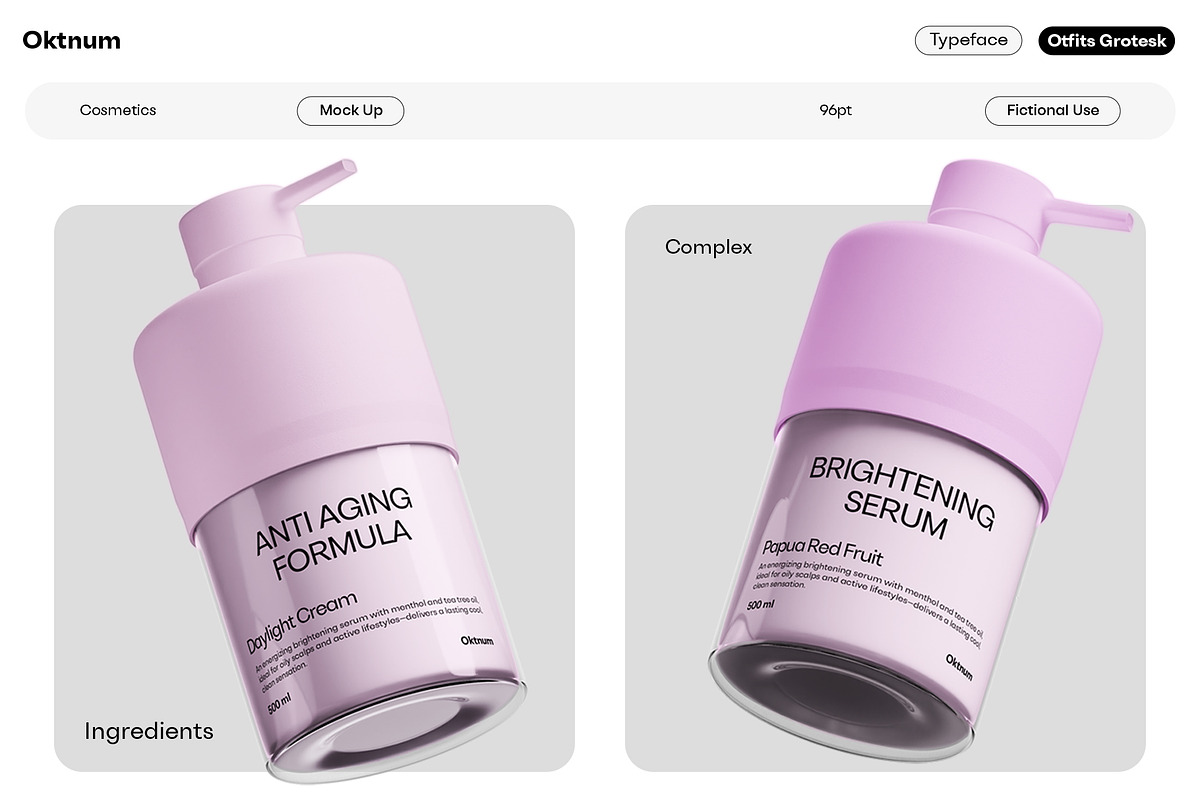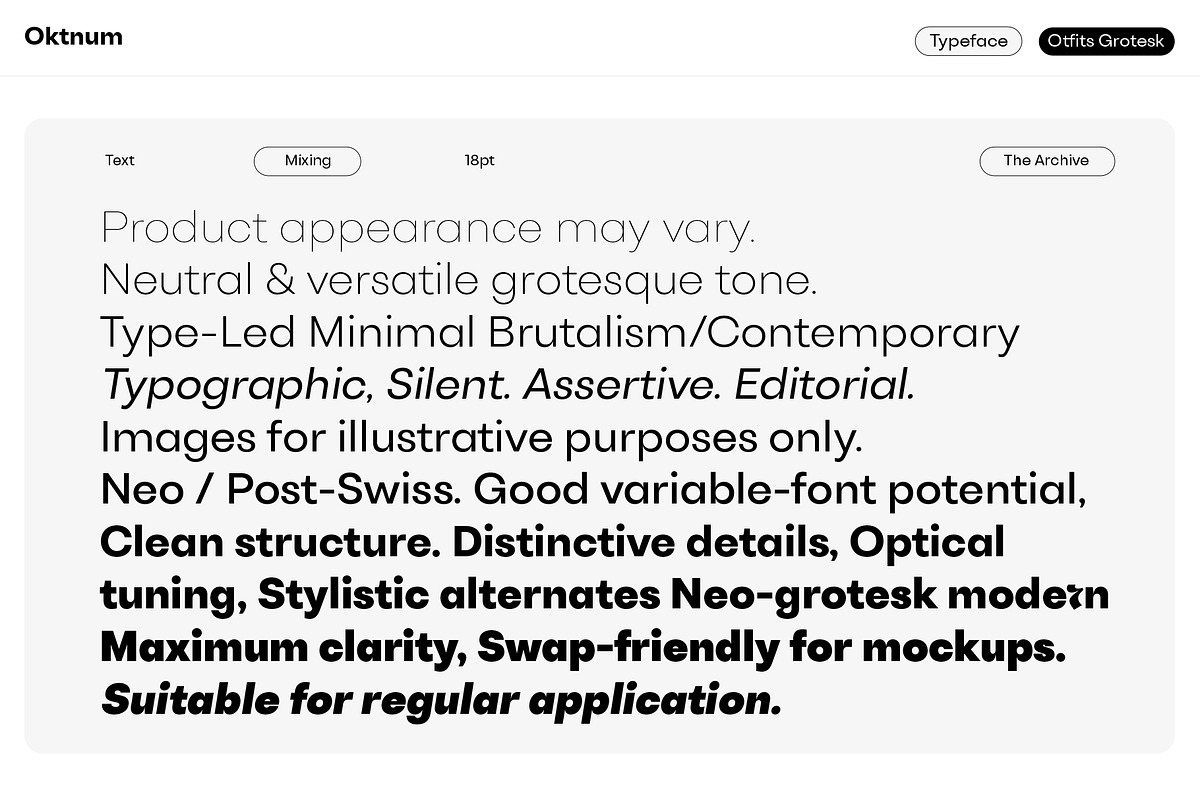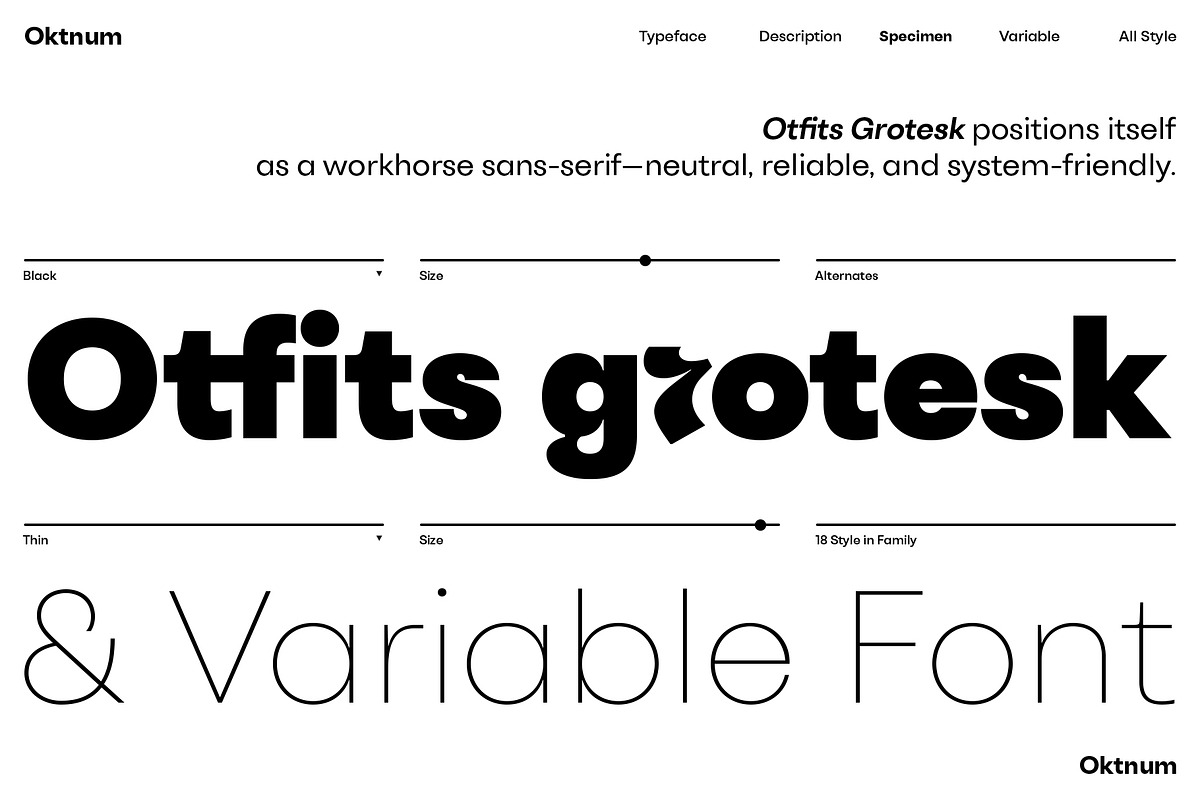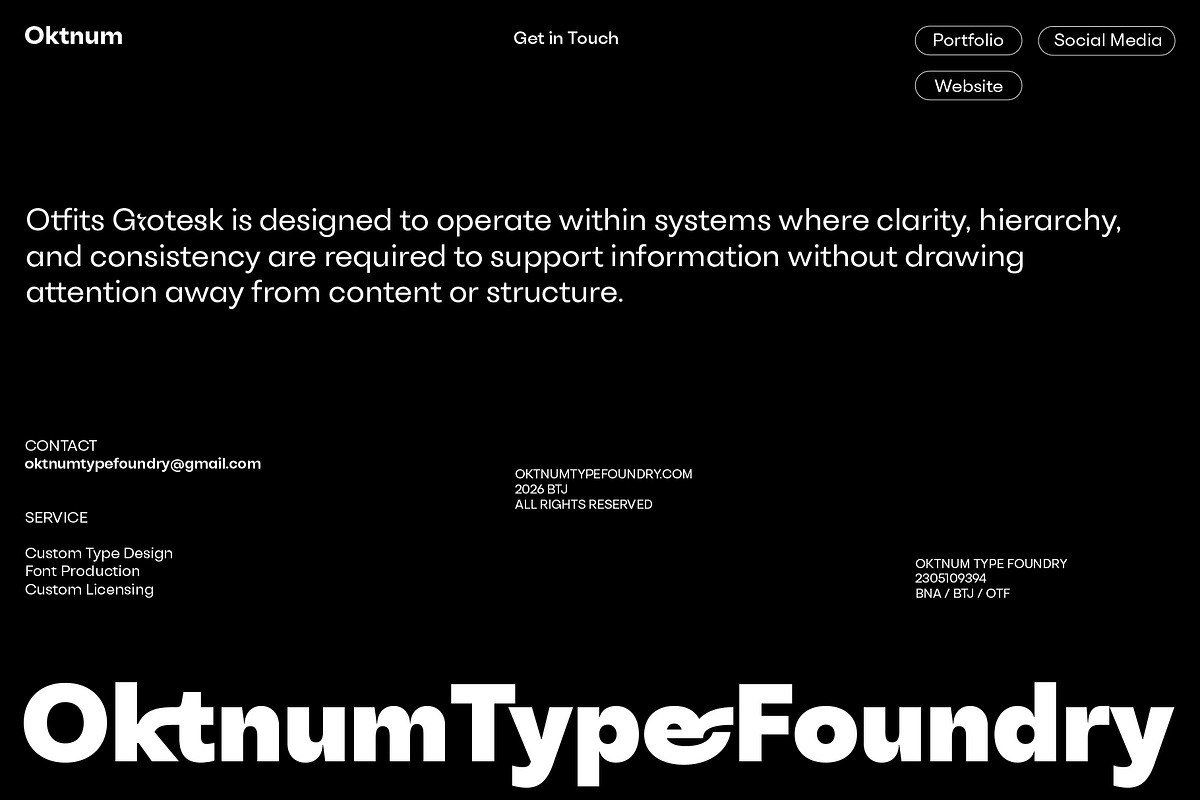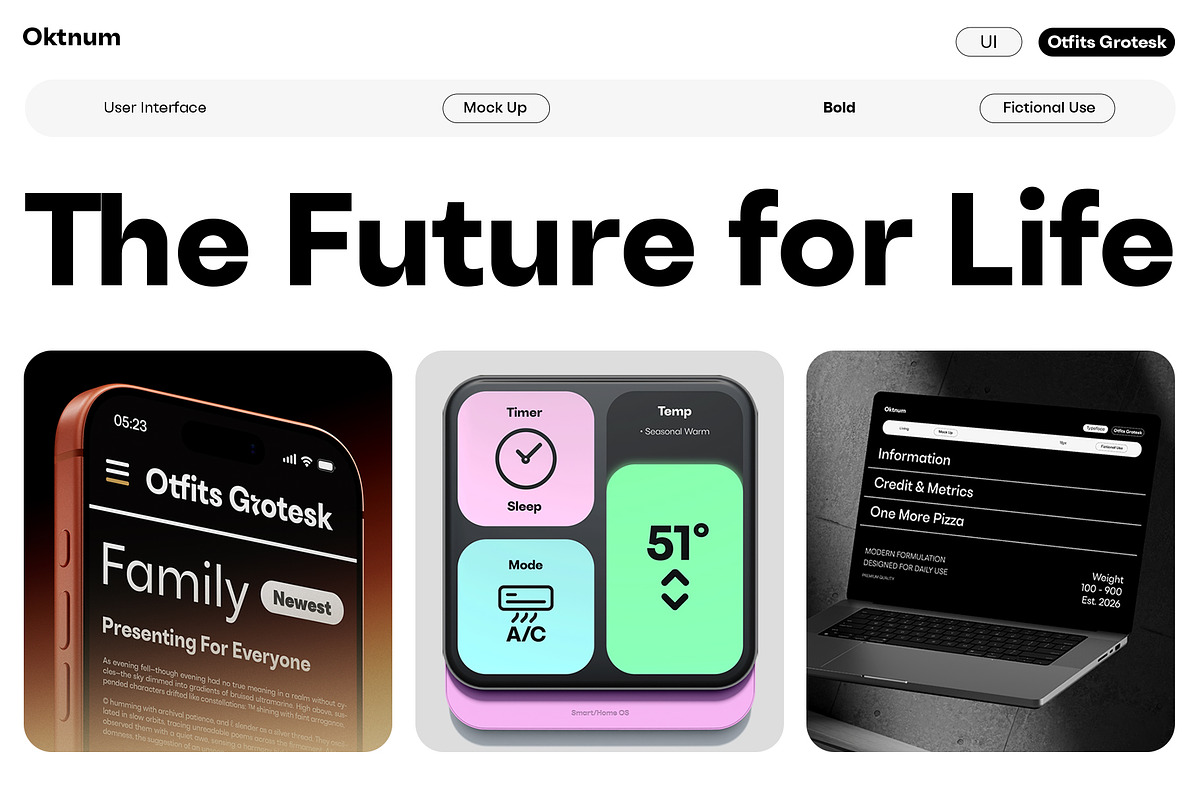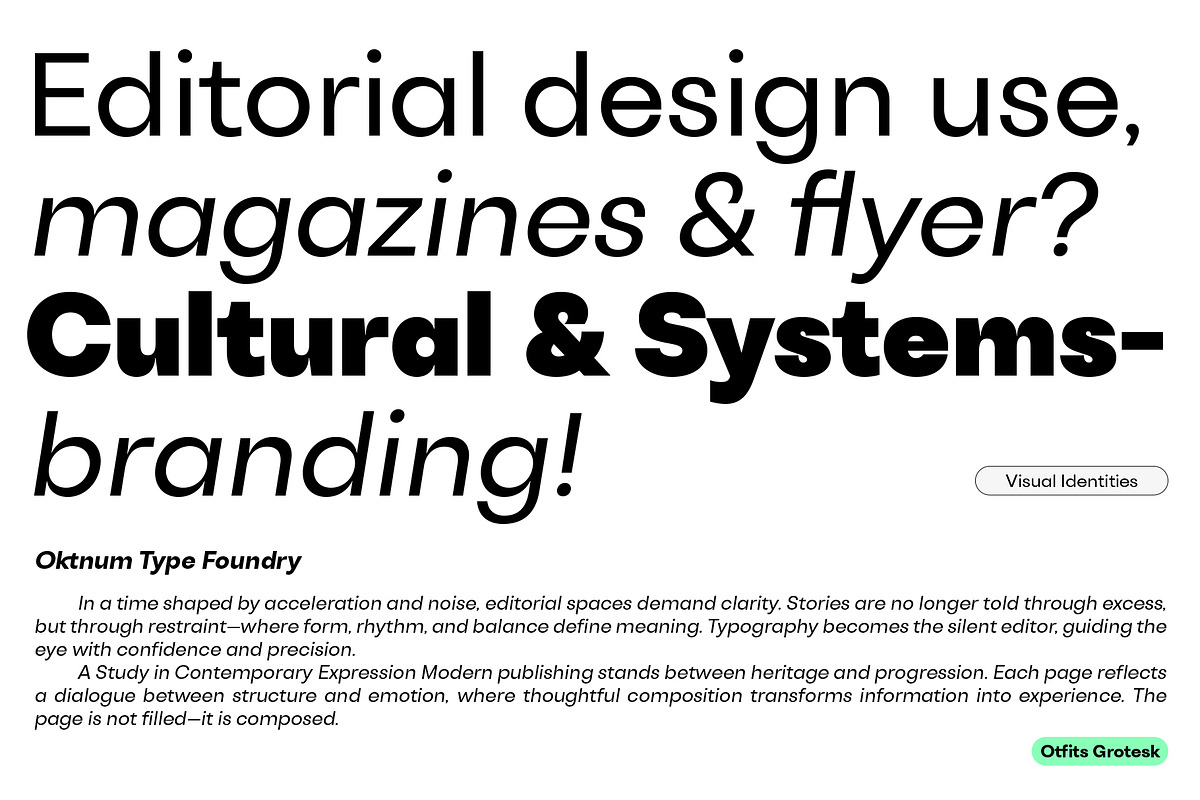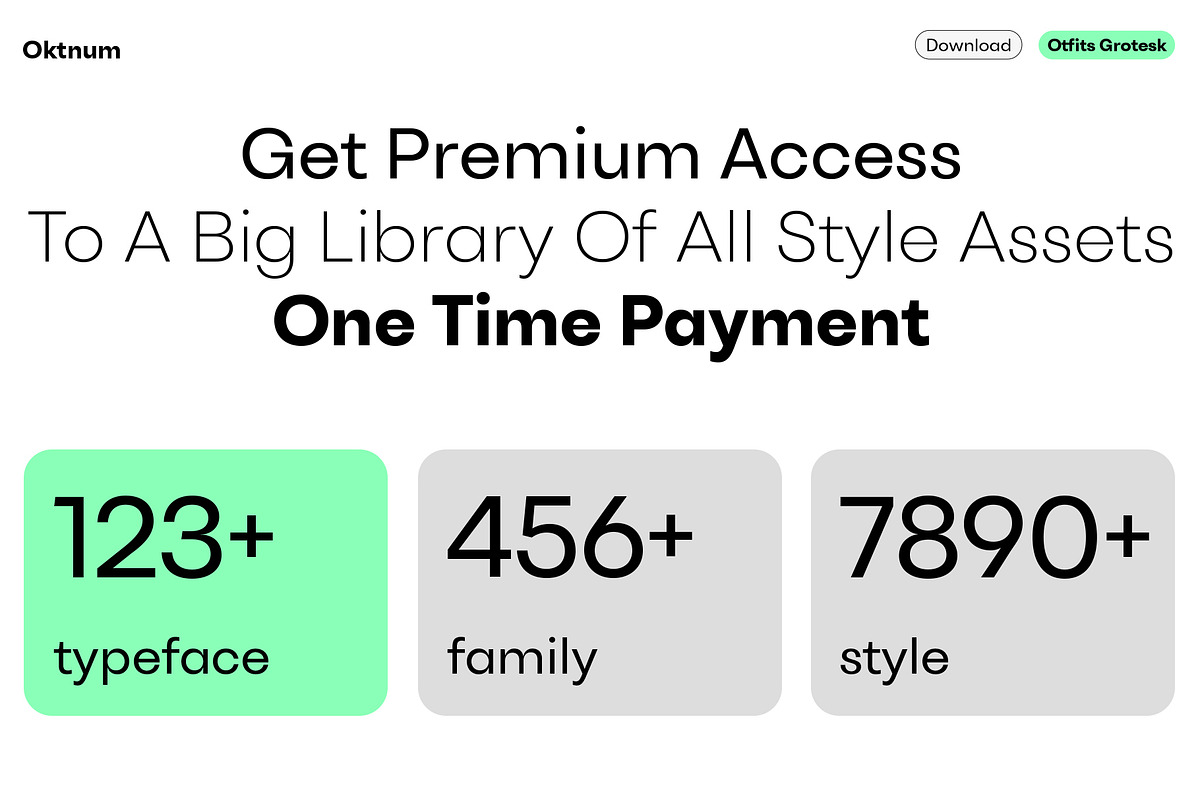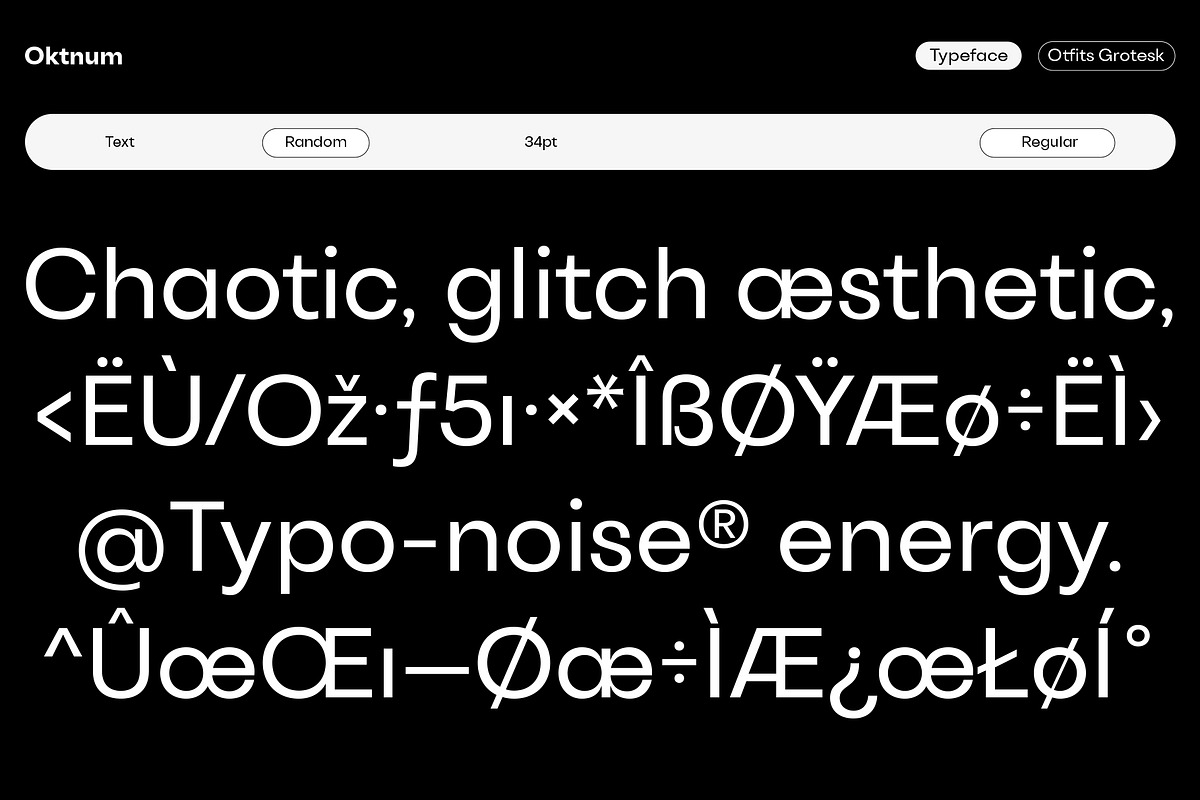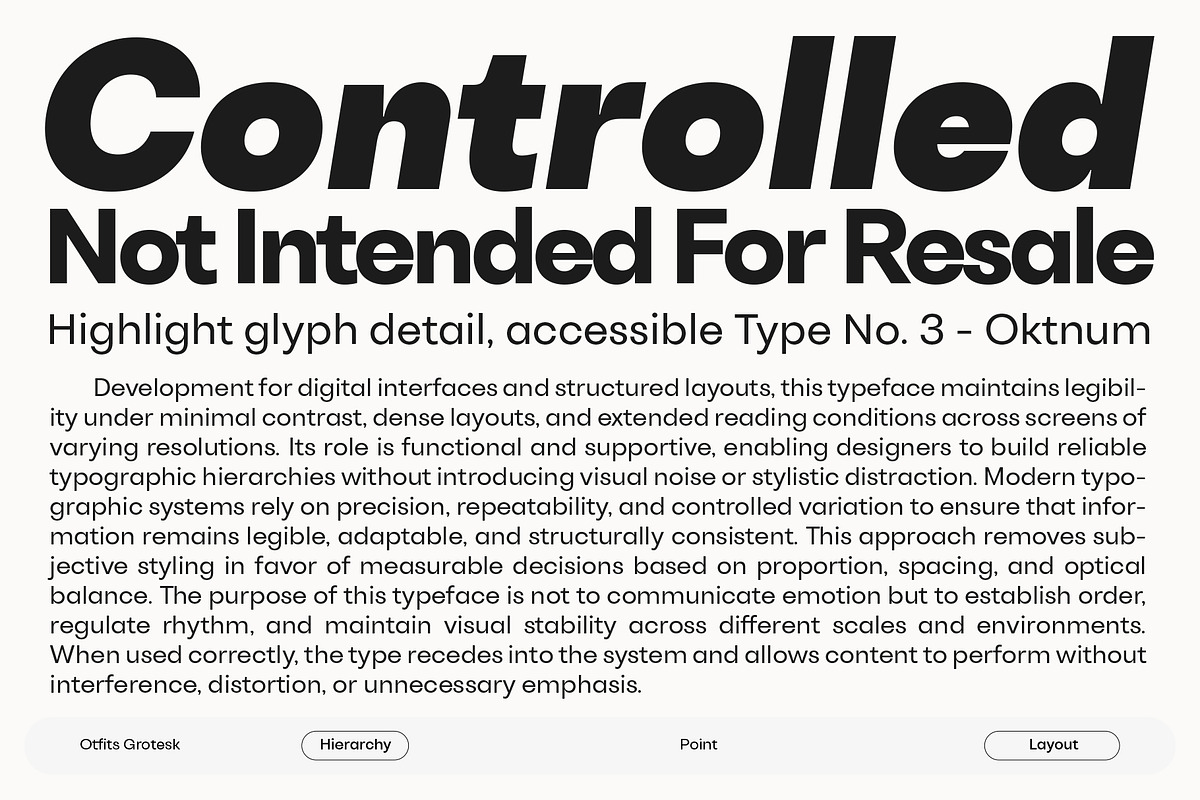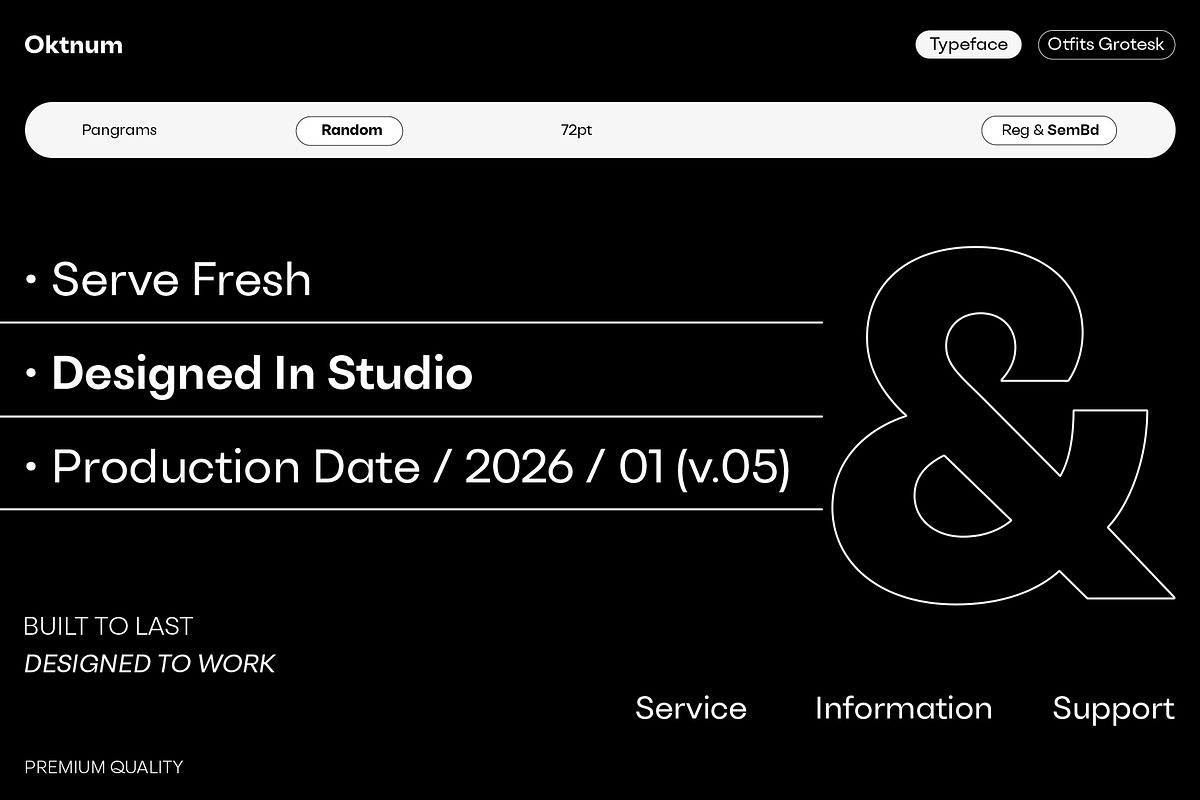
Otfits Grotesk Display
Otfits Grotesk is a contemporary grotesque sans-serif typeface designed with clarity, versatility, and modern usability at its core. Built on a neutral yet confident structure, Otfits Grotesk balances clean geometric logic with subtle humanist nuances, making it suitable for a wide range of design contexts.
Perfect typeface for your branding projects — designed to bring clarity, character, and a distinctive visual voice to every identity it touches. Carefully crafted with balanced proportions and refined details, this typeface works seamlessly across logos, packaging, editorial layouts, and digital platforms. Whether you're building a modern brand, an elegant identity, or something bold and expressive, this typeface adapts effortlessly while maintaining strong personality and readability. It’s more than just a font — it’s a design tool that helps your brand stand out, communicate clearly, and leave a lasting impression.